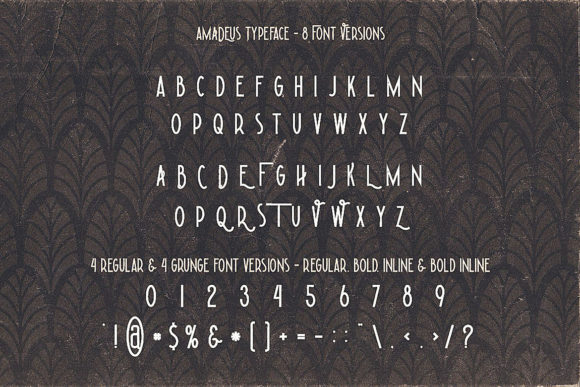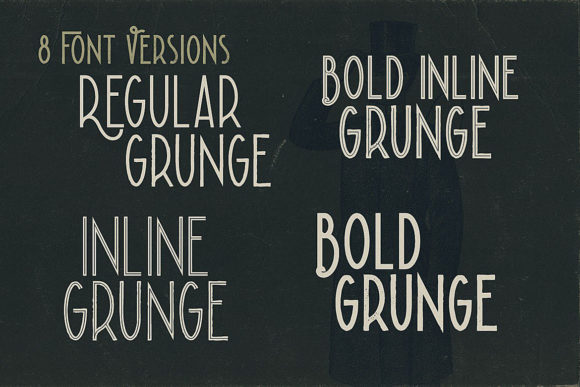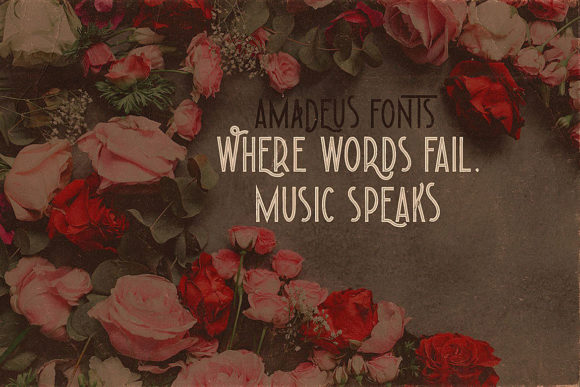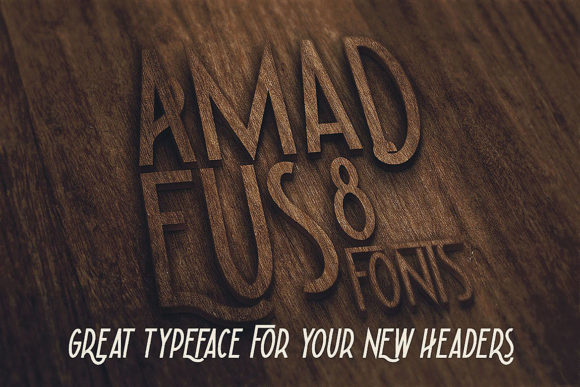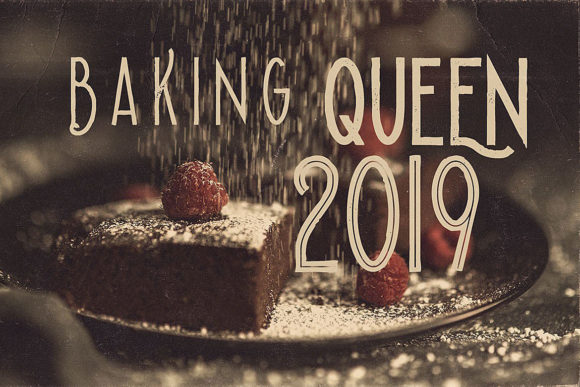
Introducing Amadeus Font: A Unique and Vintage Display Font
Are you a designer or crafter looking for a font that can add a touch of elegance and sophistication to your projects? Look no further than the Amadeus Font, a unique and vintage display font that is sure to impress. With its 8 unique styles, this font offers endless possibilities for creating stunning designs with just one download.
What is Amadeus Font?
The Amadeus Font is a carefully crafted display font that is inspired by the classic typography of the past. Its vintage feel and unique style make it perfect for a wide range of design projects, from logos and branding to posters, invitations, and more. Whether you’re looking to create a bold and eye-catching design or a more subtle and sophisticated one, the Amadeus Font is the perfect choice.
Key Features of Amadeus Font
- 8 Unique Styles: The Amadeus Font includes 8 unique styles, giving you the flexibility to create multiple designs with just one download.
- Vintage Display Font: This font is perfect for creating stunning display designs that are sure to grab attention.
- Elegant and Sophisticated: The Amadeus Font has an elegant and sophisticated feel that is perfect for high-end designs.
Uses for Amadeus Font
The Amadeus Font is a versatile font that can be used for a wide range of design projects, including:
- Logos and Branding: Create a unique and memorable logo for your business or brand with the Amadeus Font.
- Posters and Flyers: Use the Amadeus Font to create eye-catching posters and flyers that are sure to grab attention.
- Invitations and Stationery: Add a touch of elegance and sophistication to your invitations and stationery with the Amadeus Font.
- Packaging and Product Design: Use the Amadeus Font to create stunning packaging and product designs that stand out from the crowd.
Benefits of Using Amadeus Font
There are many benefits to using the Amadeus Font for your design projects, including:
- Unique and Memorable Designs: The Amadeus Font allows you to create unique and memorable designs that are sure to stand out.
- Elegance and Sophistication: This font adds a touch of elegance and sophistication to any design project.
- Flexibility: With 8 unique styles to choose from, the Amadeus Font offers endless possibilities for creating stunning designs.
Tips for Using Amadeus Font
Here are a few tips for using the Amadeus Font to get the most out of your design projects:
- Experiment with Different Styles: Try out different styles of the Amadeus Font to find the one that works best for your design project.
- Use it with Other Fonts: Combine the Amadeus Font with other fonts to create a unique and interesting design.
- Pay Attention to Kerning and Spacing: Make sure to pay attention to kerning and spacing to ensure that your design looks professional and polished.
The Amadeus Font is a unique and vintage display font that is perfect for designers and crafters looking to add a touch of elegance and sophistication to their projects. With its 8 unique styles and ease of use, this font offers endless possibilities for creating stunning designs. Whether you’re looking to create a bold and eye-catching design or a more subtle and sophisticated one, the Amadeus Font is the perfect choice.